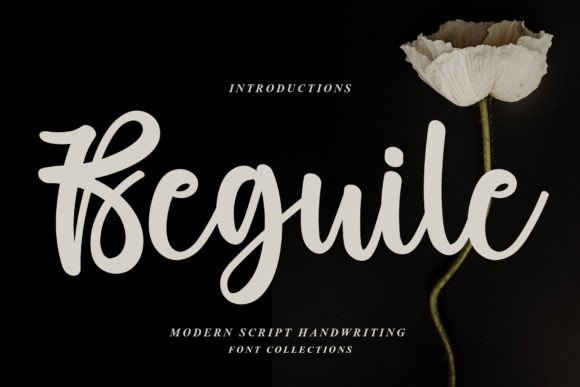
About Beguile Font
**Beguile: A Stylish and Dainty Script Font for Elegance**
Beguile is a font that embodies style and delicacy. With its exquisite script characters, it is the perfect choice for a wide range of design projects, including logos, branding, labels, photography watermarks, special events, and any other project that calls for a touch of beautiful script elegance.
The charm of Beguile lies in its stylish and dainty script characters, each meticulously crafted to exude sophistication and authenticity. Whether you’re working on branding materials that demand elegance or crafting special event invitations, Beguile adds a layer of grace that elevates your work beautifully.
This font’s versatility ensures it can adapt to various design contexts. It can be used to create memorable logos that leave a lasting impression, infuse a sense of style into branding materials, or add an elegant touch to your special projects. Its PUA encoding allows easy access to all the glyphs and swashes, providing you with creative freedom.
In summary, Beguile is more than just a font; it’s a source of style and delicacy that enhances your design projects. Its stylish and dainty script letters make it the perfect choice for infusing sophistication and elegance into your work. With Beguile, your creative projects will shine with a graceful and stylish touch. Choose Beguile, and let your designs captivate with its dainty and elegant charm.